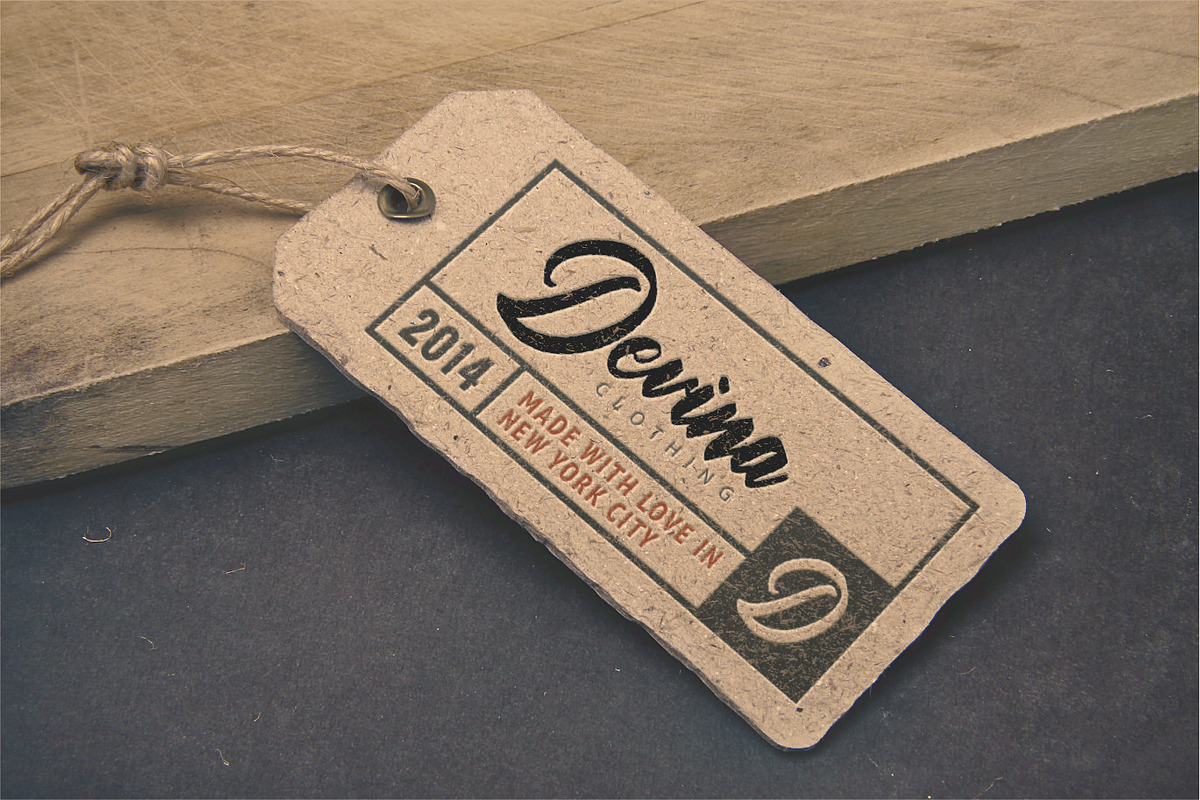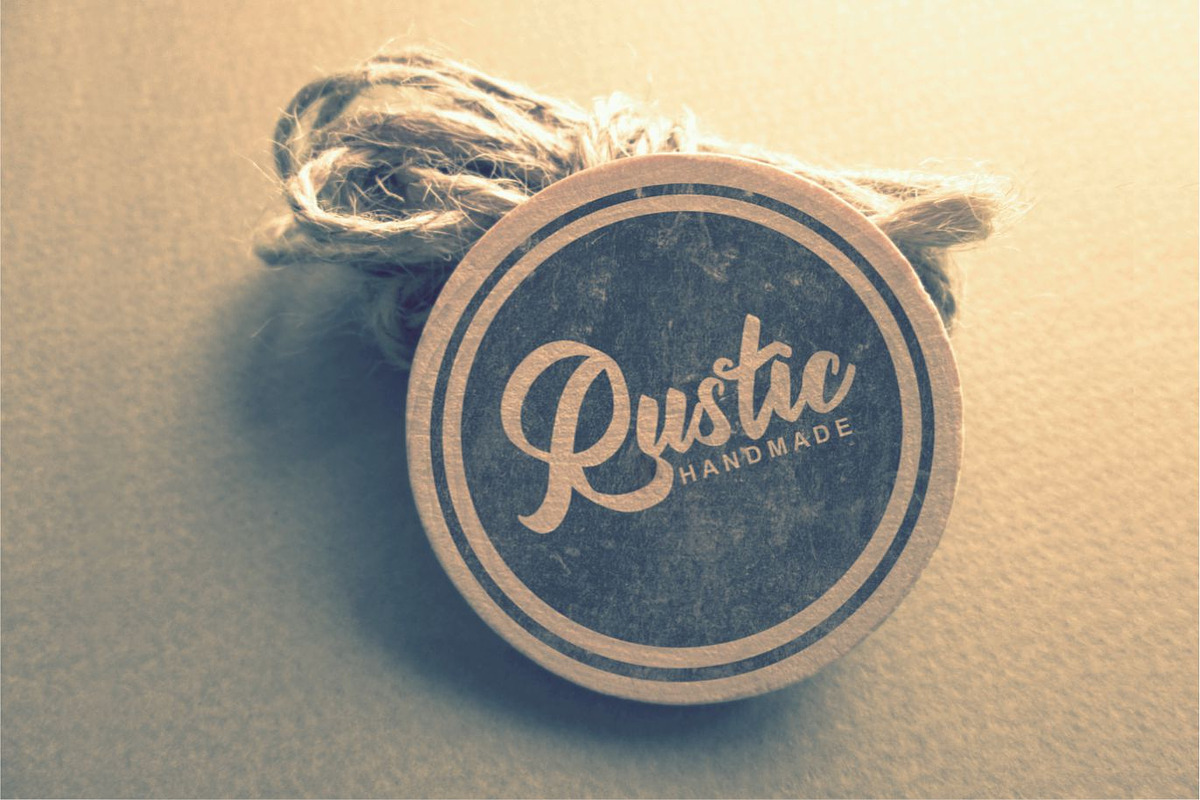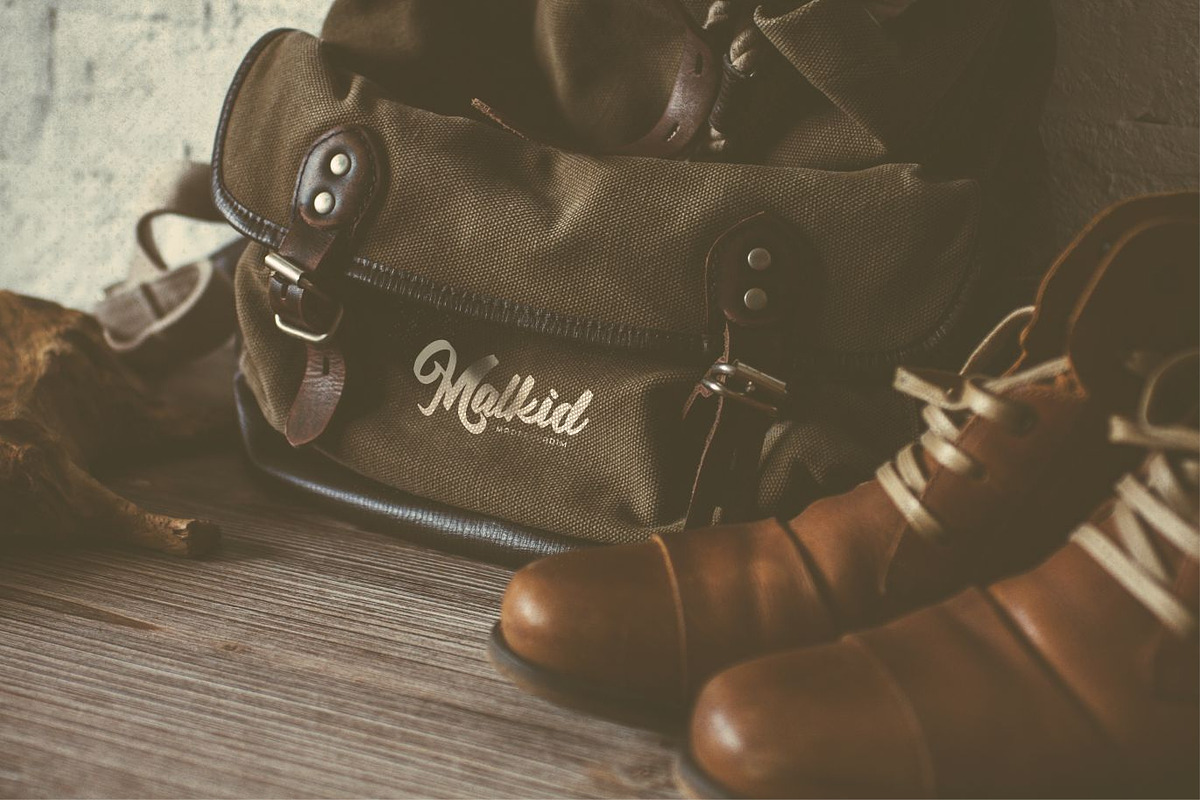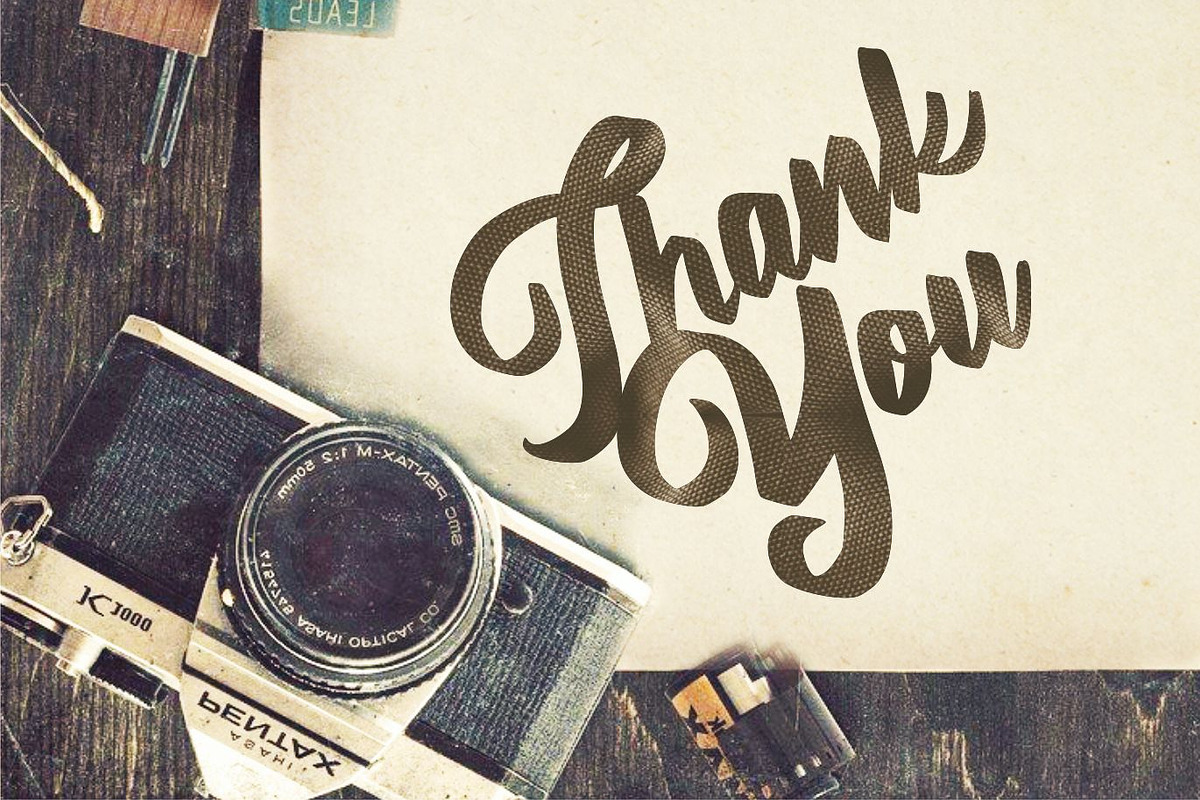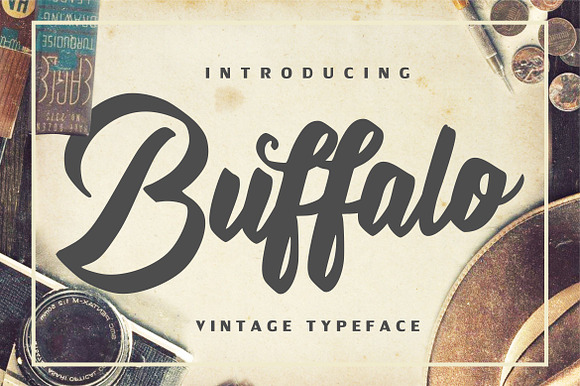
Buffalo - Vintage Typeface
So beautiful on invitation like greeting cards, branding materials, business cards, quotes, posters, and more!
Why Buffalo - Vintage Typeface is worth a look
Buffalo - Vintage Typeface by KAZ by IanMikraz Studio fits naturally into Branding, posters, packaging, typography.